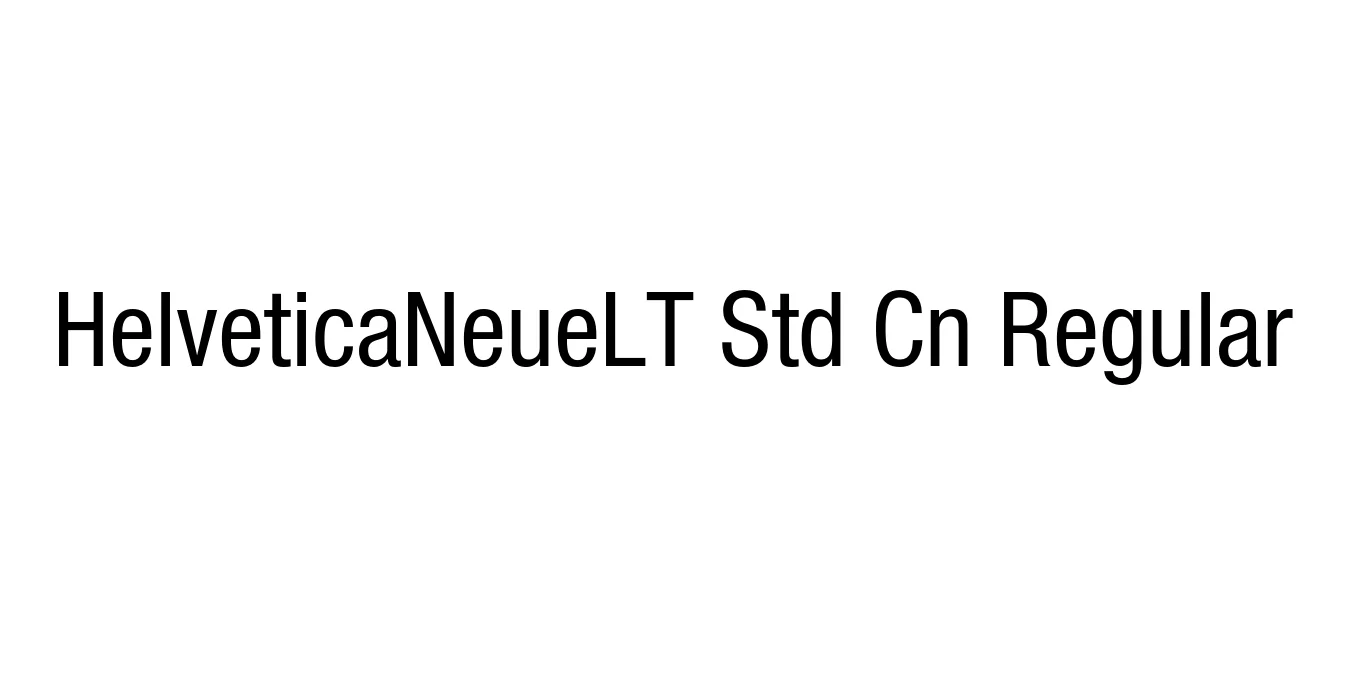
HelveticaNeueLT Std Cn Regular
Designed by Max Miedinger and Linotype Design Studio
| Category | Sans-serif |
| Designer | Max Miedinger and Linotype Design Studio |
| Similar Fonts | Arial Narrow, Roboto Condensed, Univers Condensed, Akzidenz-Grotesk |
HelveticaNeueLT Std Cn Regular is a part of the Neue Helvetica family, which was first released in 1983 as a comprehensive reworking of the legendary 1957 Helvetica typeface. Developed by Linotype, this version aimed to provide a more unified and systematic structural approach to the font family, utilizing a numerical naming convention. The Condensed (Cn) variant was specifically engineered to offer a narrower profile, allowing for high legibility in tight spaces while maintaining the signature neutral and objective Swiss aesthetic.
Throughout its history, this typeface has become a global standard for corporate communication and urban signage. The Regular Condensed weight provides a perfect balance between vertical prominence and horizontal efficiency. Its clean, neo-grotesque lines and refined proportions make it a favorite for designers seeking a professional, authoritative look that remains functional across both digital and analog mediums.
HelveticaNeueLT Std Cn Regular Best Uses
Perfect for magazine headlines and subheadings where space is a constraint.
Widely used for professional business cards, letterheads, and brand manuals.
Optimized for high-density information display on small screens.
Excellent for directional signs where horizontal readability is limited.
Ideal for listing ingredients or technical specifications on narrow product labels.